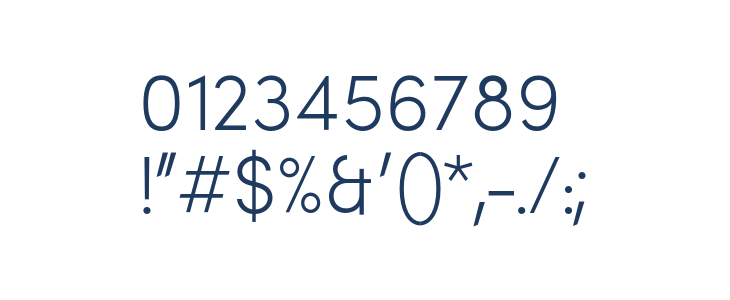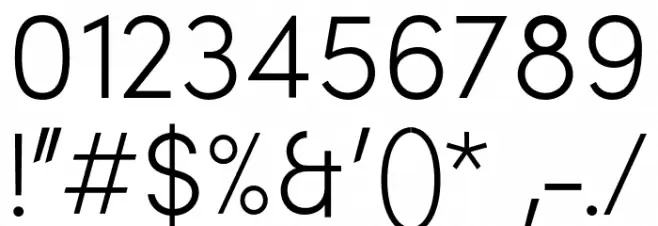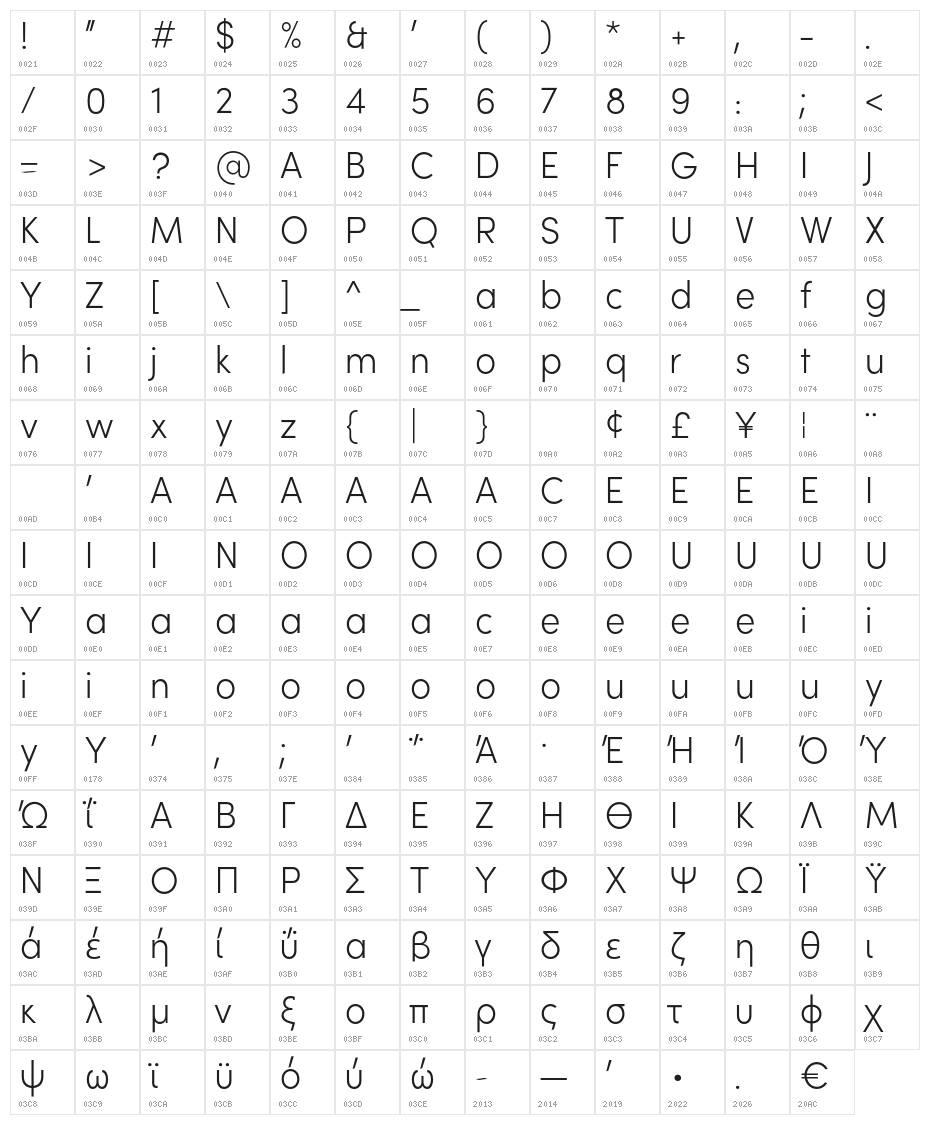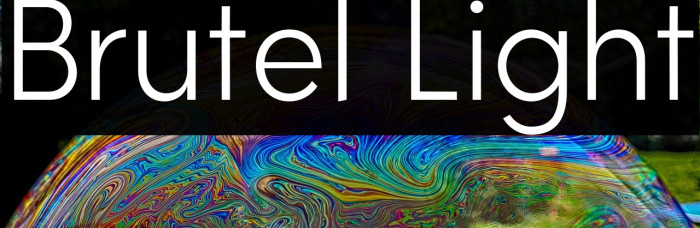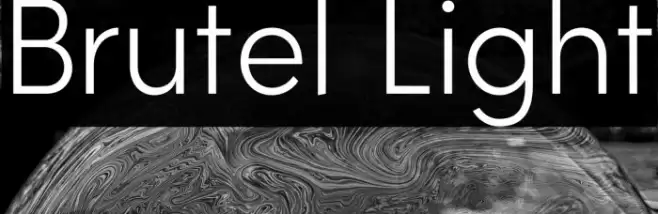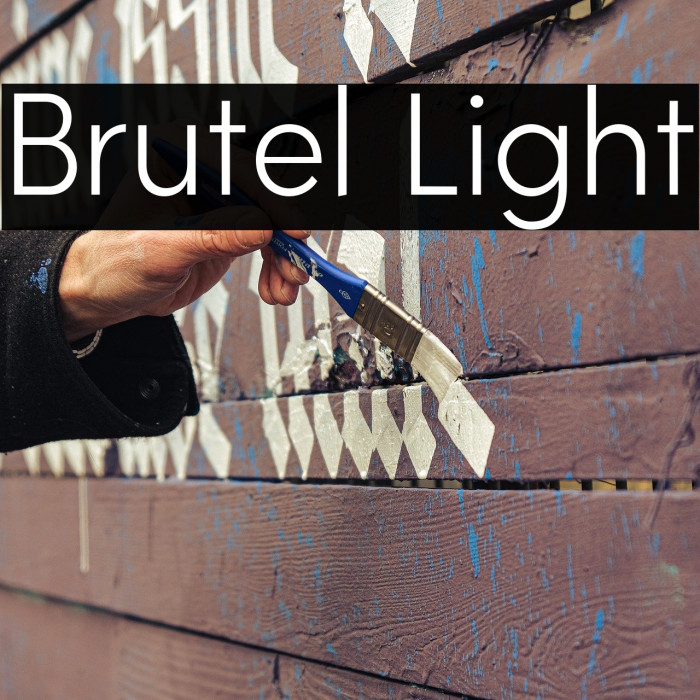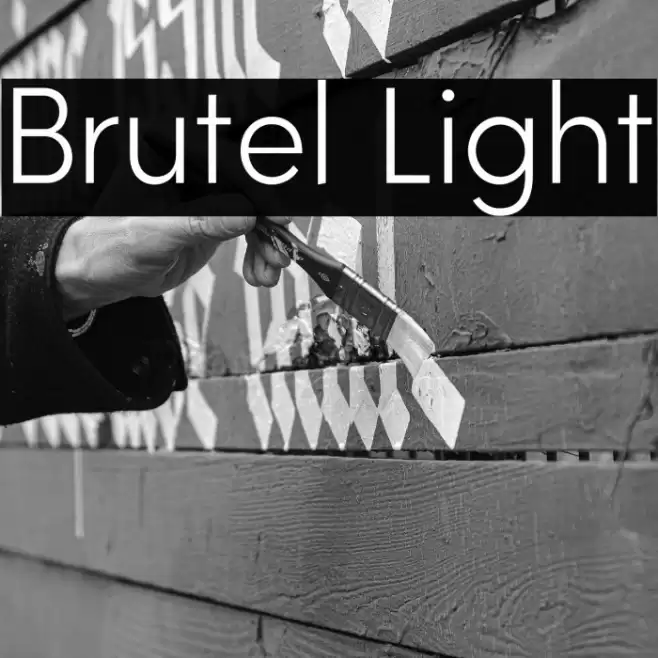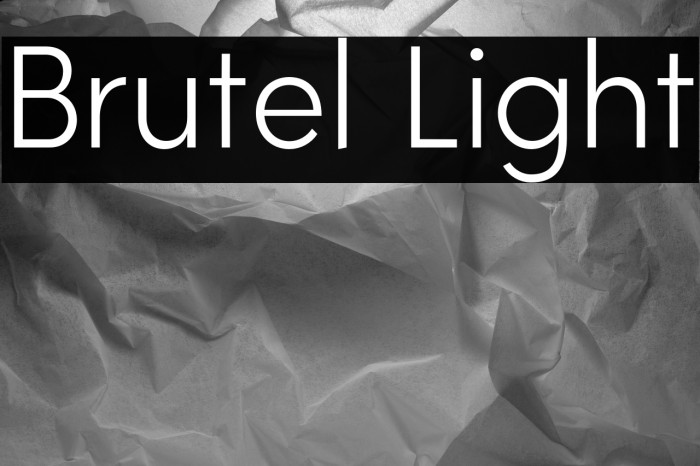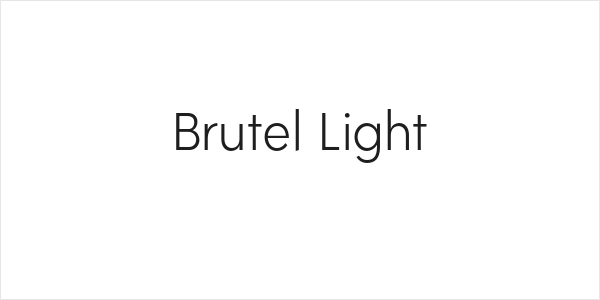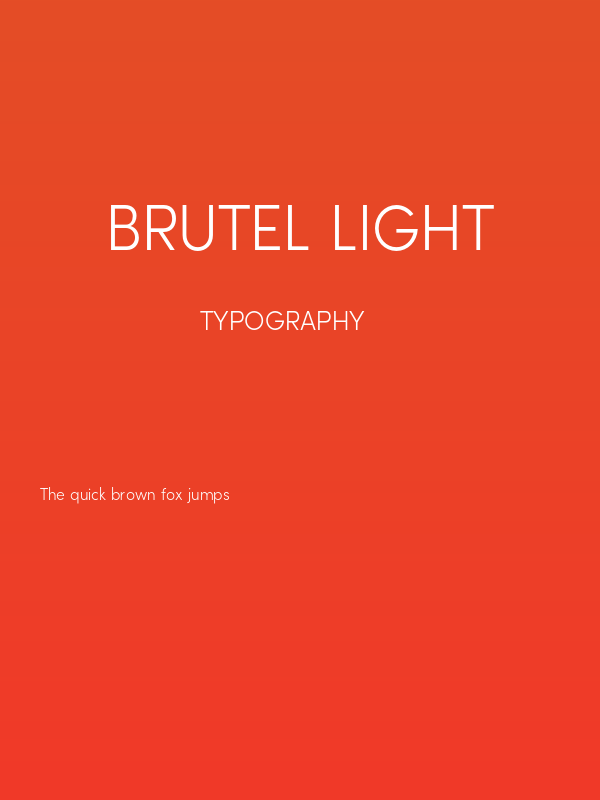
Brutel Light Font
Brutel Light Description
This typeface exhibits a clean and modern aesthetic with a geometric sans-serif style. The characters are well-balanced with consistent stroke widths, creating a harmonious appearance. The uppercase letters are bold and assertive, while the lowercase letters maintain a friendly and approachable look. The numerals are clear and easy to read, making them suitable for various applications. Special characters are designed with simplicity and clarity in mind, ensuring they complement the overall style. The font's minimalistic design makes it versatile for both digital and print media.
| Proposed Projects | Ideal for branding, web design, advertising, and editorial layouts. |